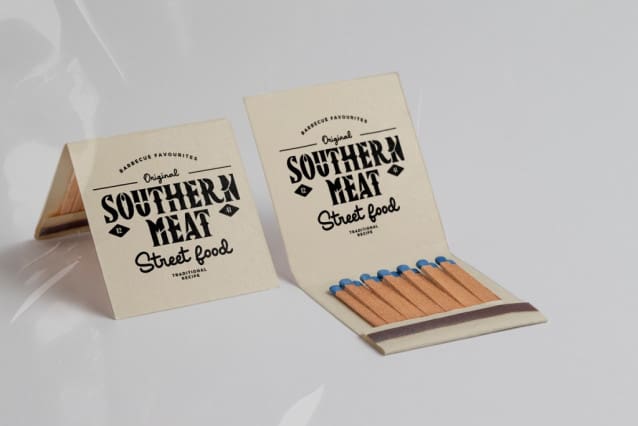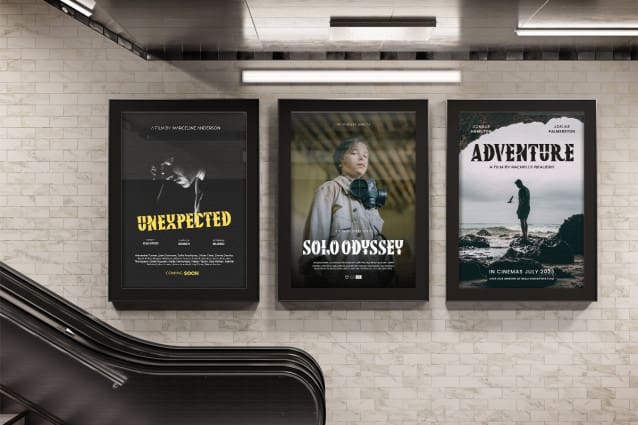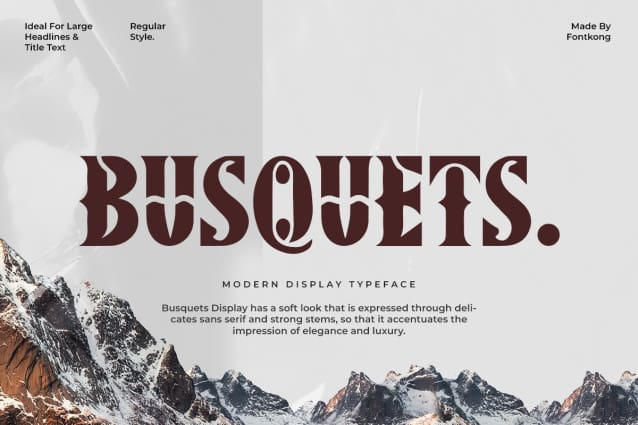
Busquets Font
Busquets Font – Modern Unique Display Font was created to present a unique and modern impression to anyone who sees it. This is in line with the characteristics of a Busquets Font – Modern Unique Display Font that looks so cool. People who read a variety of texts using this typeface have to try very hard to read and understand them. The font is illegible.
Busquets Font – Modern Unique Display Font is the best modern font and is suitable for many projects. This font can be used as a digital font, such as on the web, video, and other displays, and as a printed font on posters, banners, and book covers. This type of font can be printed in small or large sizes and still looks good up close or from a distance.
Busquets Font – Modern Unique Display Font is very appropriate when used at a music event. This font can be used for posters, banners, stage decorations, and on-screen displays showing people. The modern and energetic impression from this font can build a pleasant atmosphere for the audience.